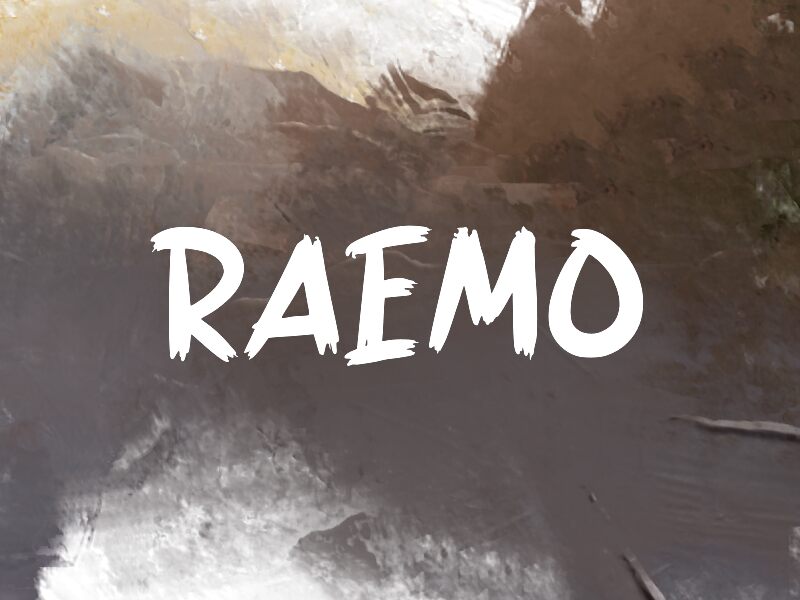
RAEMO
Raemo font by wepfont.com is a free brush font that feels like it was painted in one bold, confident sweep. Each letter is thick, inky, and slightly ragged at the edges, giving it a raw, hand-made energy rather than a neat, polished script. The strokes feel weighty and opaque, almost like poster paint dragged quickly across paper, which gives Raemo a loud, unmistakable presence wherever it appears.
Using Raemo, this free font shines on event posters, music covers, YouTube thumbnails, streetwear graphics, social media promos, bold logos, and packaging that needs attitude. Its chunky rhythm and tight texture hold up well at large sizes, where the brush details can really show. Pair Raemo with a clean, simple sans serif for body text to let its messy charisma take center stage.